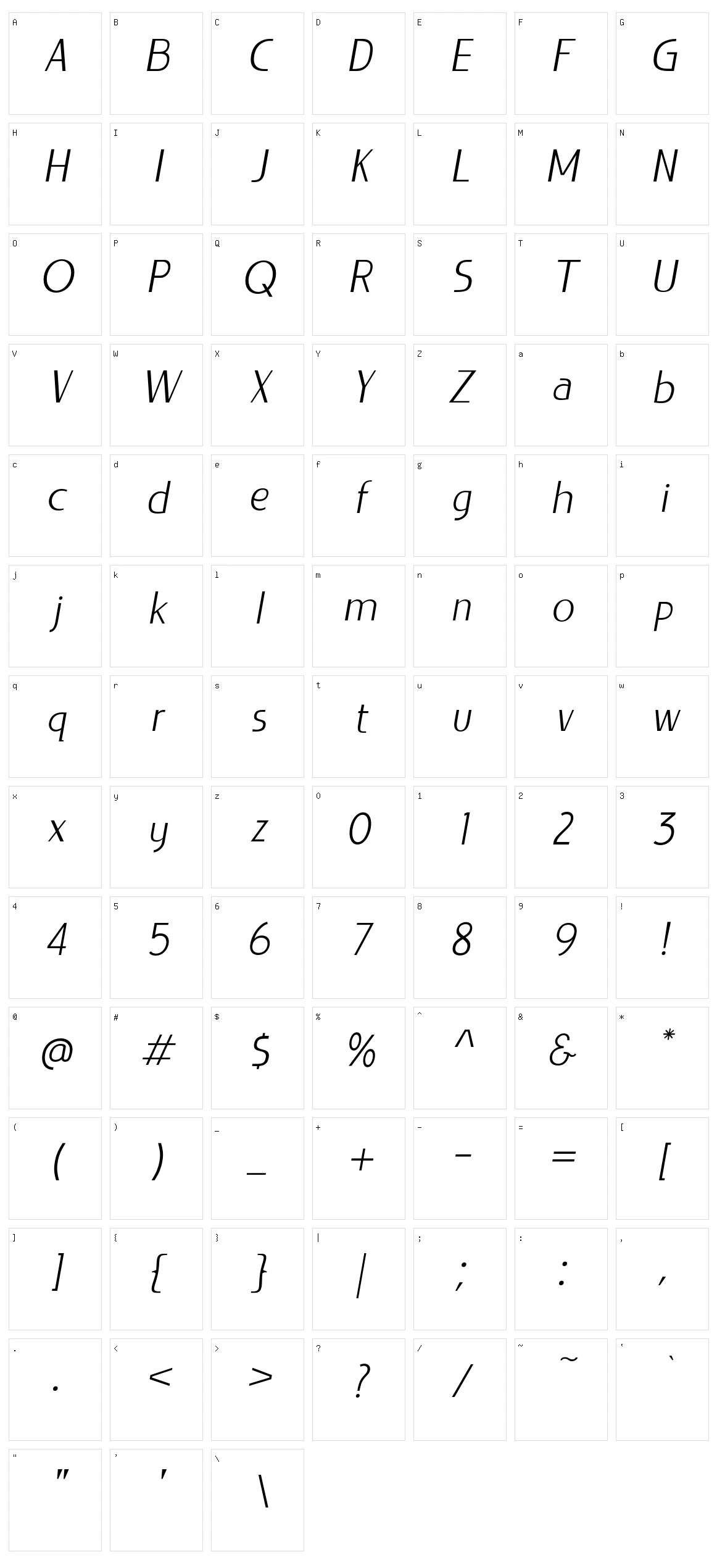
Introduce the type of san serif font titled 'LIEUR', minimalist geometric style, suitable for logos, label designs, or even just plain body text. Comes with 2 types of styles; Normal and Italic, starting from Light-Regular-Medium-Bold-Black size gives you ease of writing with maintained harmonization.
Perkenalkan jenis san serif font berjudul 'LIEUR', bergaya geometris minimalis, cocok digunakan untuk Logo, Label desain, atau bahkan untuk sekedar body teks biasa. Hadir dengan 2 jenis gaya; Normal dan Italic, dimulai dari ukuran Light-Regular-Medium-Bold-Black memberikan anda kemudahan menulis dengan harmonisasi yang terjaga.